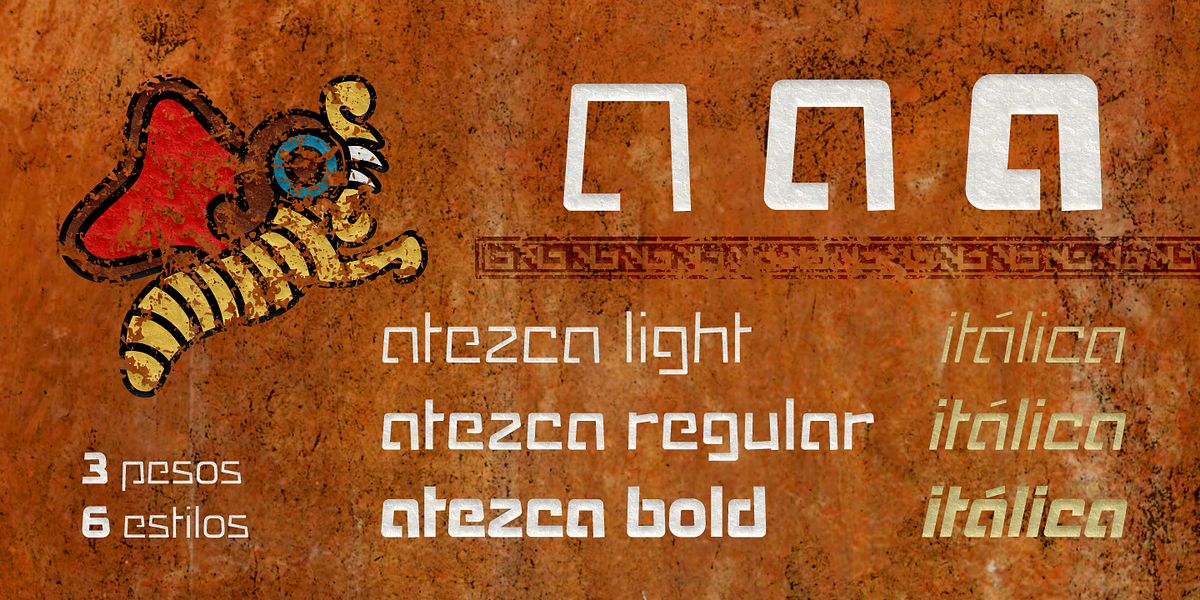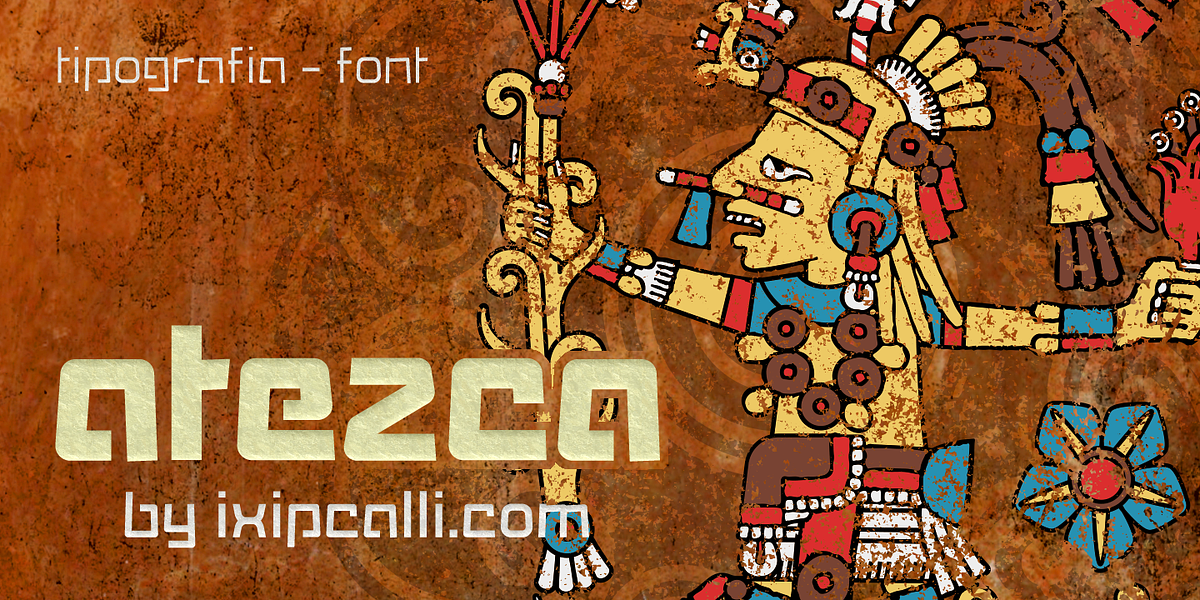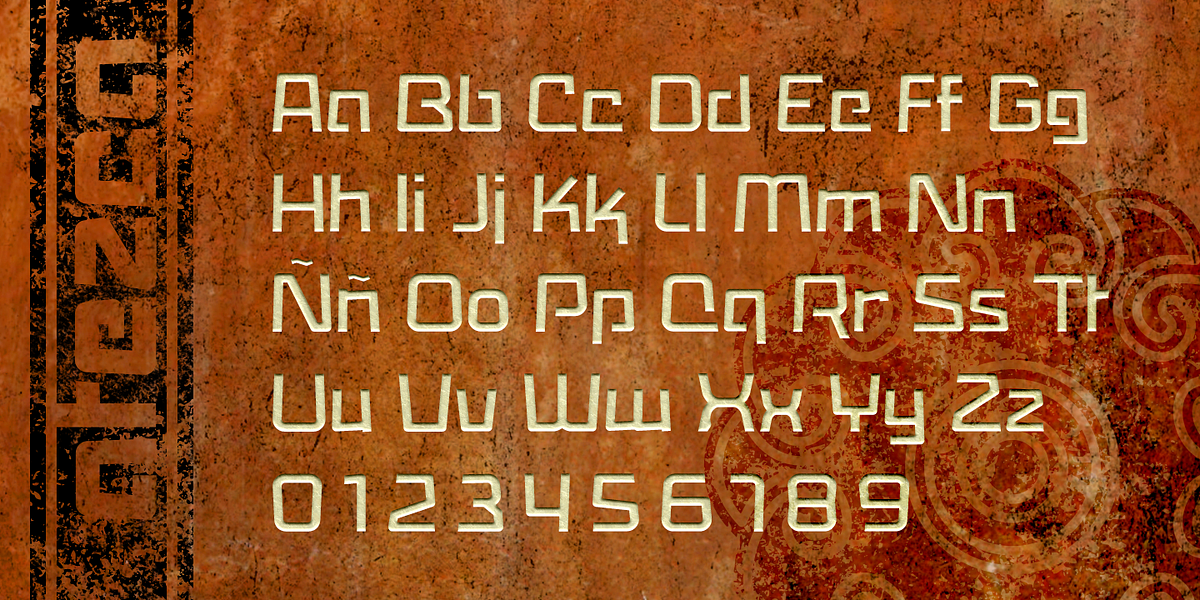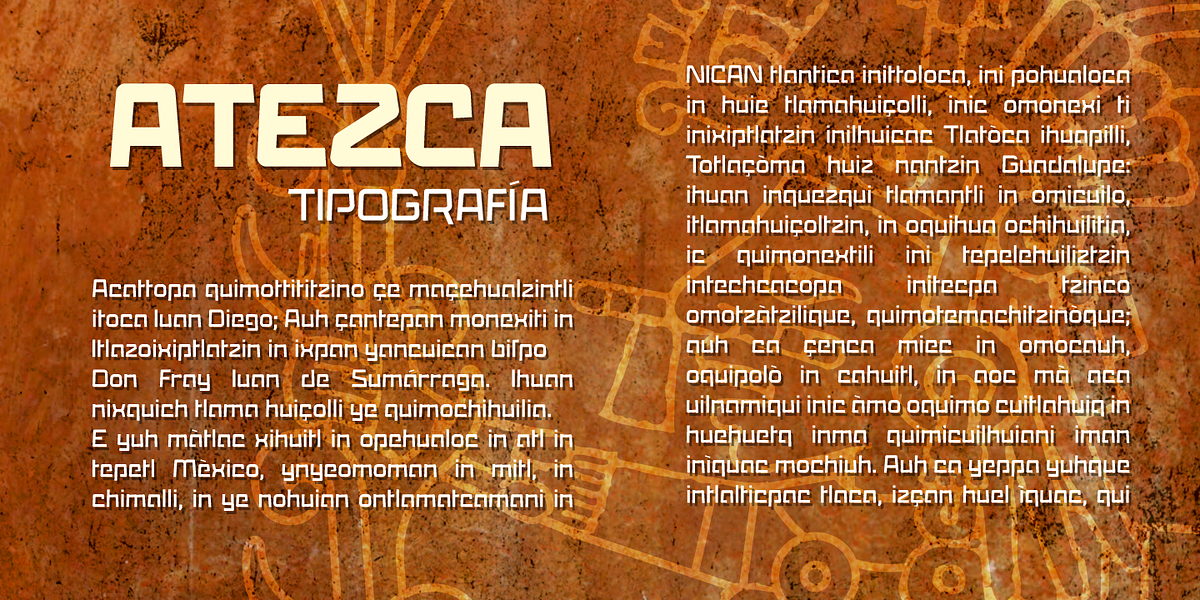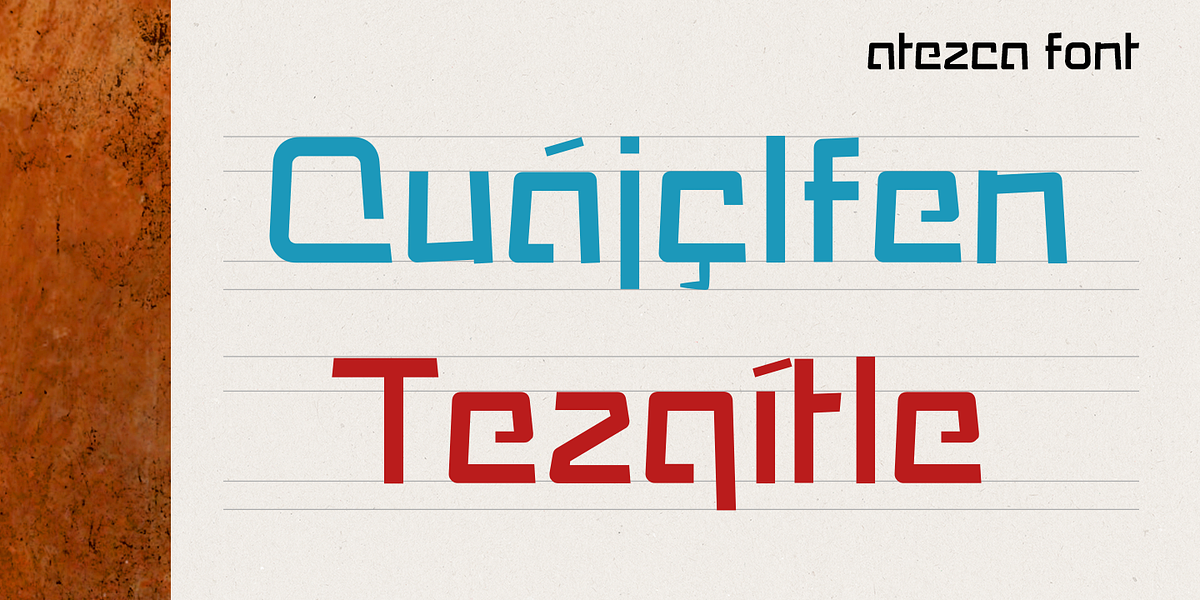
Atezca
Atezca is a geometric sans serif typeface inspired by the pre-Columbian Mesoamerican style. It features square, straight forms and comes in three weights (light, regular, bold) with italic variants for each weight, totaling six styles.